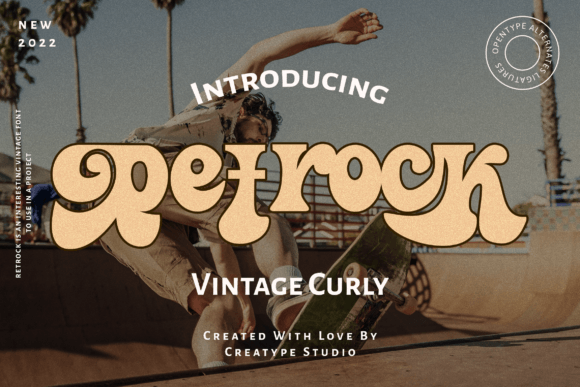
Unleash the groovy vibes of Retrock, an irregular retro display typeface that captures the essence of nostalgia with its curvy and spread tails. Dive into a world of retro branding projects, logos, wedding designs, and social media posts that evoke the charm of the past. Let Retrock be your creative companion for advertisements, product packaging, and designs, adding a touch of vintage flair to your products and labels. Personalize your stationery with Retrock's unique character and create one-of-a-kind watermarks that reflect your style. Embrace the retro revival with Retrock and make your creative visions come to life.
With Retrock, you can:
* Embark on a journey through time with its groovy retro aesthetics.
* Create designs that ooze vintage charm and personality.
* Make a statement with logos and branding projects that stand out from the crowd.
* Add a touch of nostalgia to wedding invitations and designs, making them truly memorable.
* Captivate your audience with social media posts that evoke a sense of the past.
* Elevate your advertisements and product designs with a retro twist.
* Craft packaging that reflects your brand's unique heritage.
* Personalize your labels with a font that speaks to your audience.
* Design watermarks that add an artistic flair to your creations.
* Infuse your stationery with a touch of retro charm.